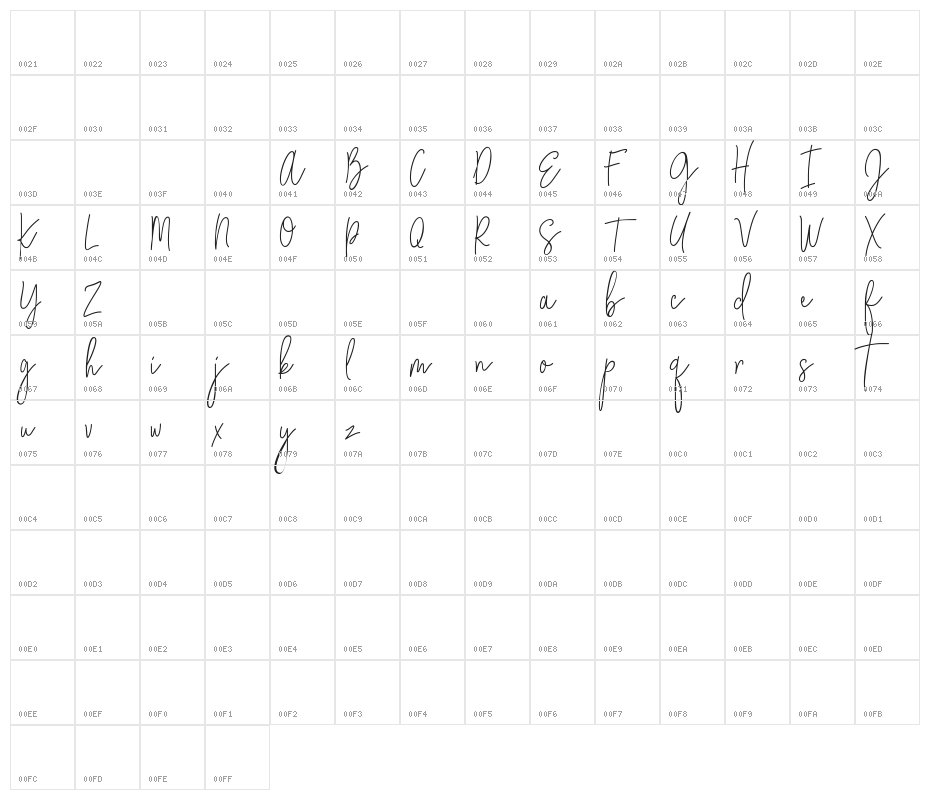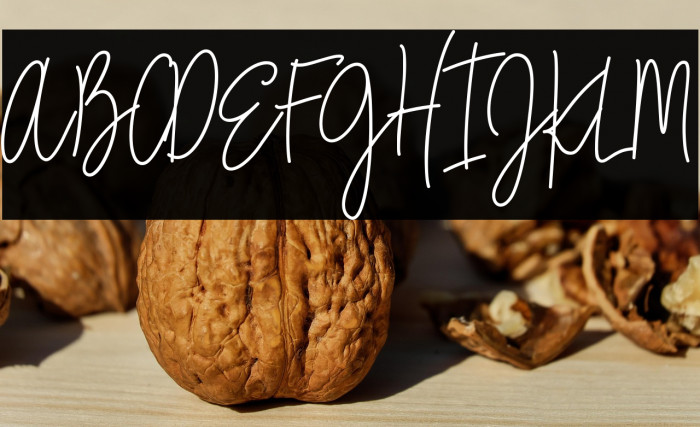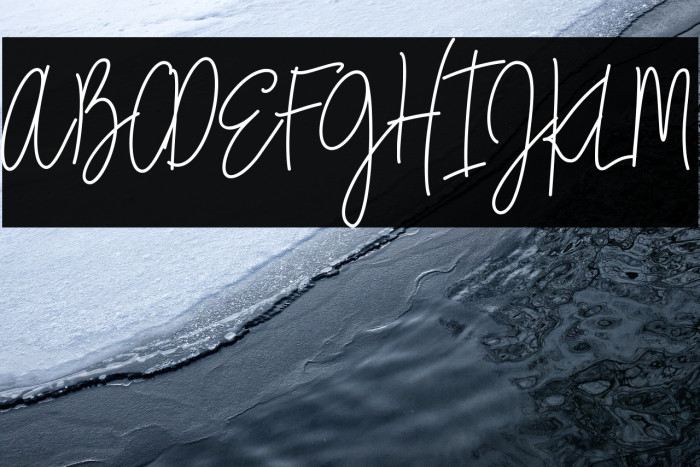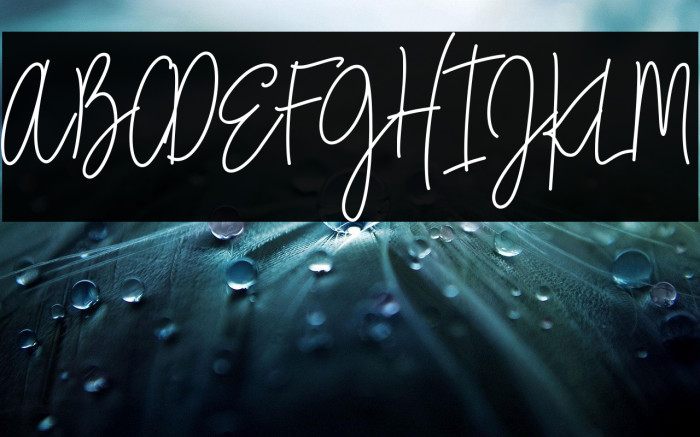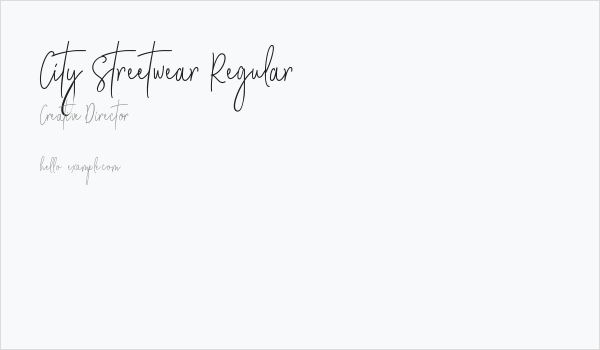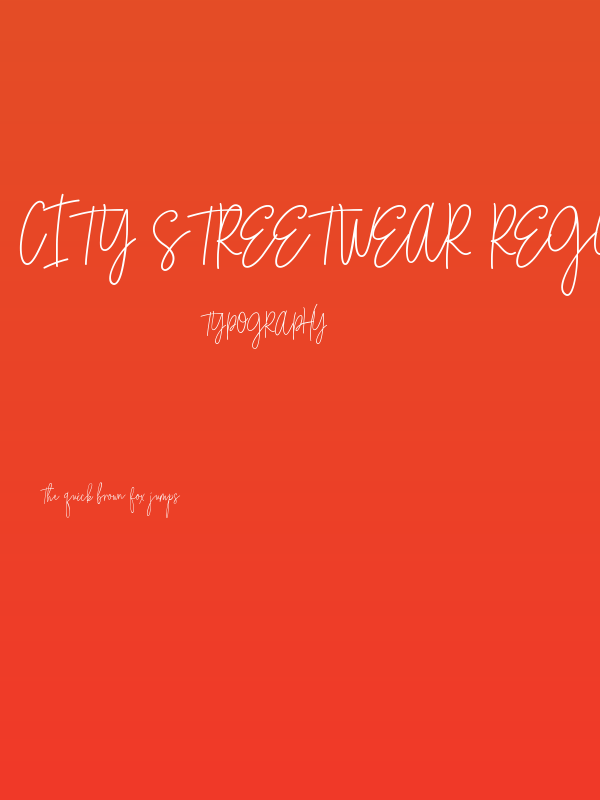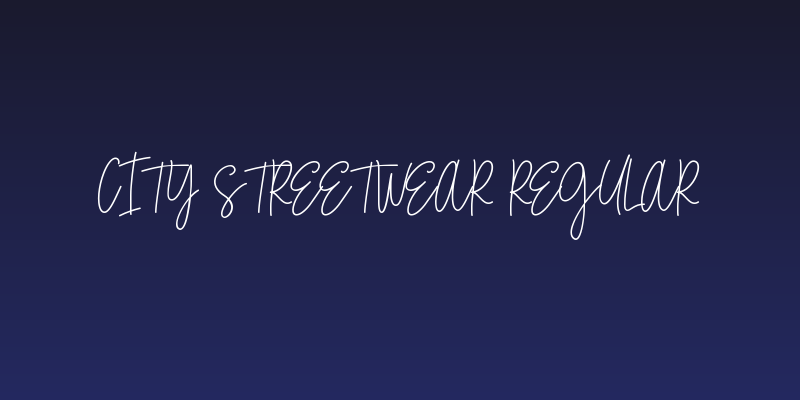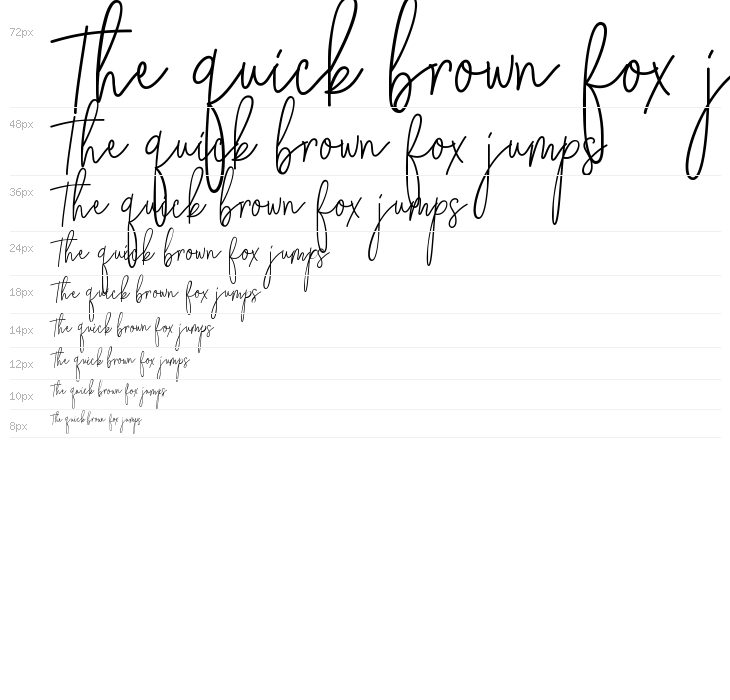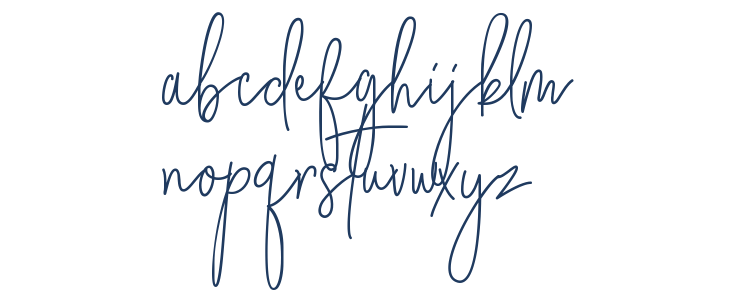
City Streetwear Regular Font
City Streetwear Regular Description
This font exudes a modern, urban vibe with its handwritten style, characterized by fluid, interconnected strokes that mimic the natural flow of cursive writing. The letters are elongated and slightly slanted, giving a sense of movement and dynamism. The uppercase and lowercase letters maintain a consistent style, with a playful yet sophisticated appearance. The font's thin lines and high contrast between strokes add to its elegance, making it suitable for contemporary designs. Its unique character spacing and artistic flair make it ideal for projects that require a personal touch.
| Use Case | Logos, Headlines, Branding |
| Proposed Projects | Ideal for branding, fashion design, social media graphics, and urban-themed projects. |